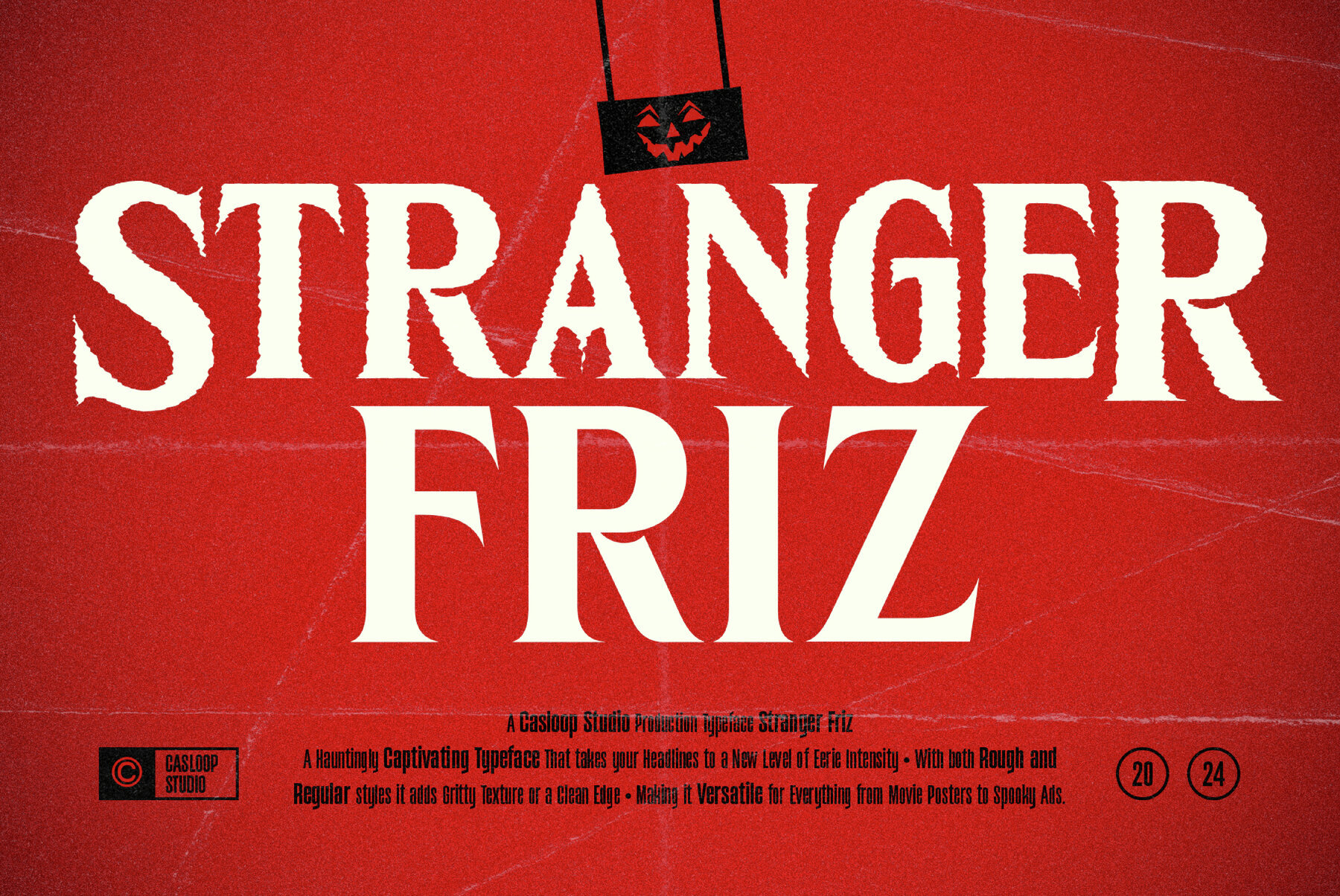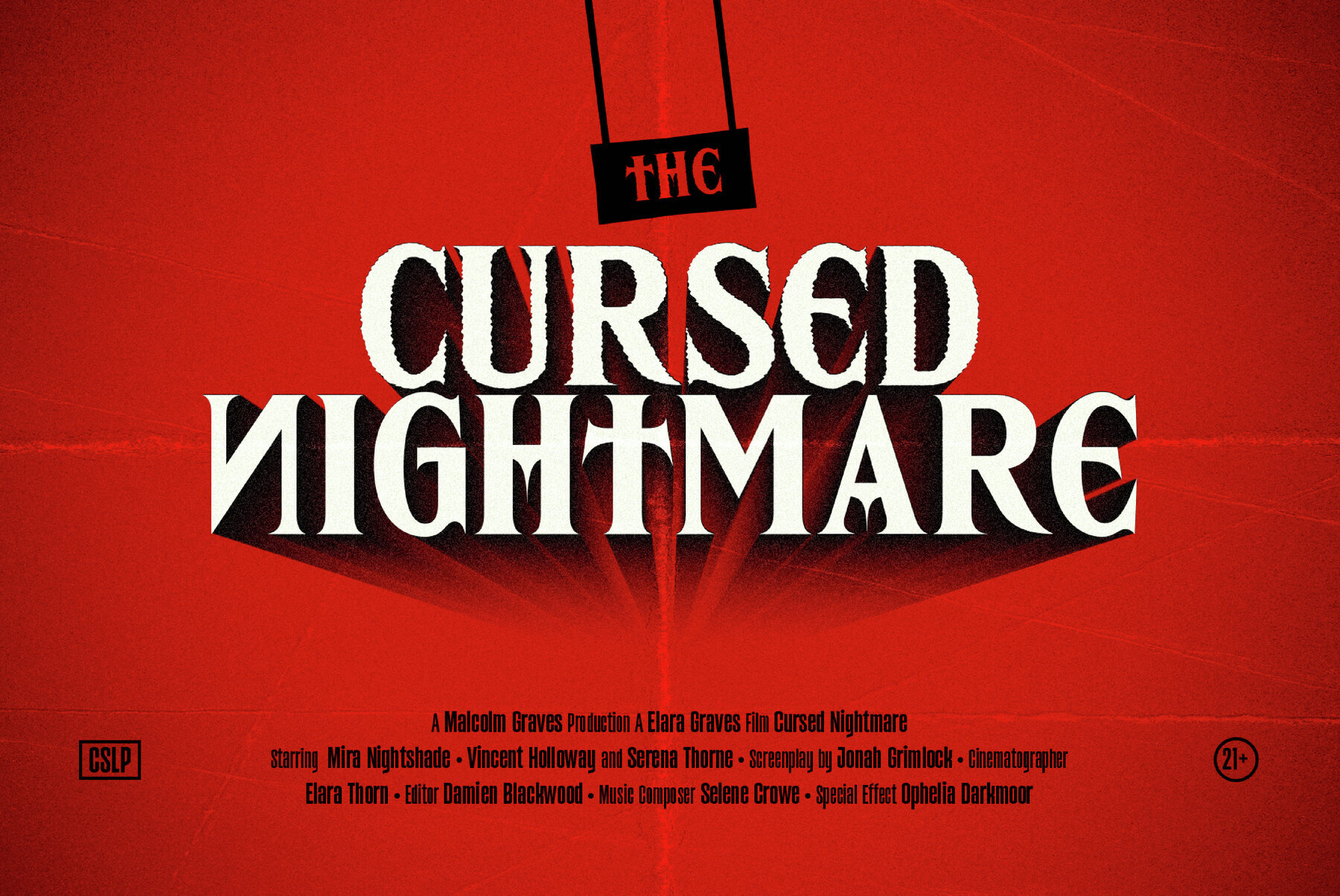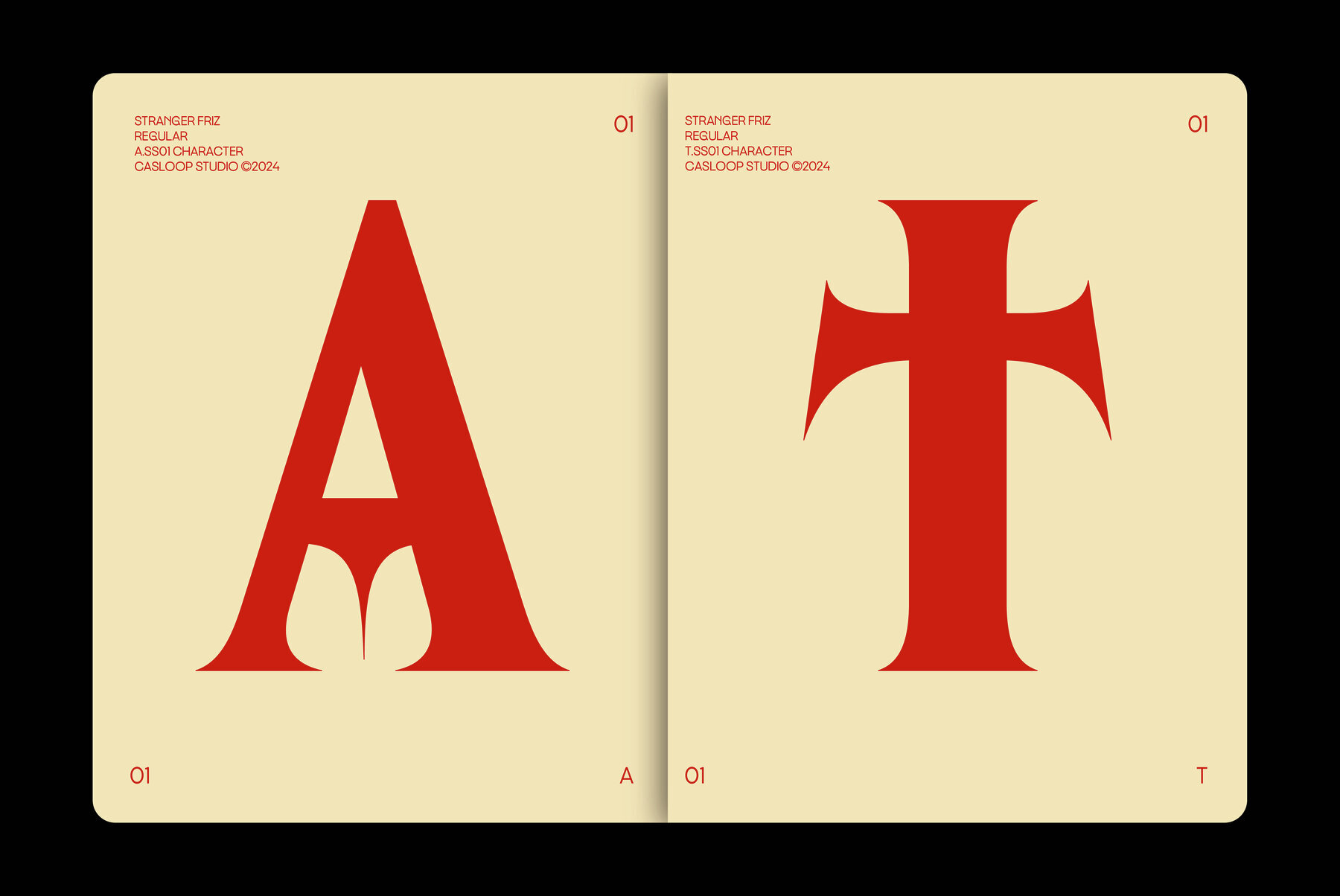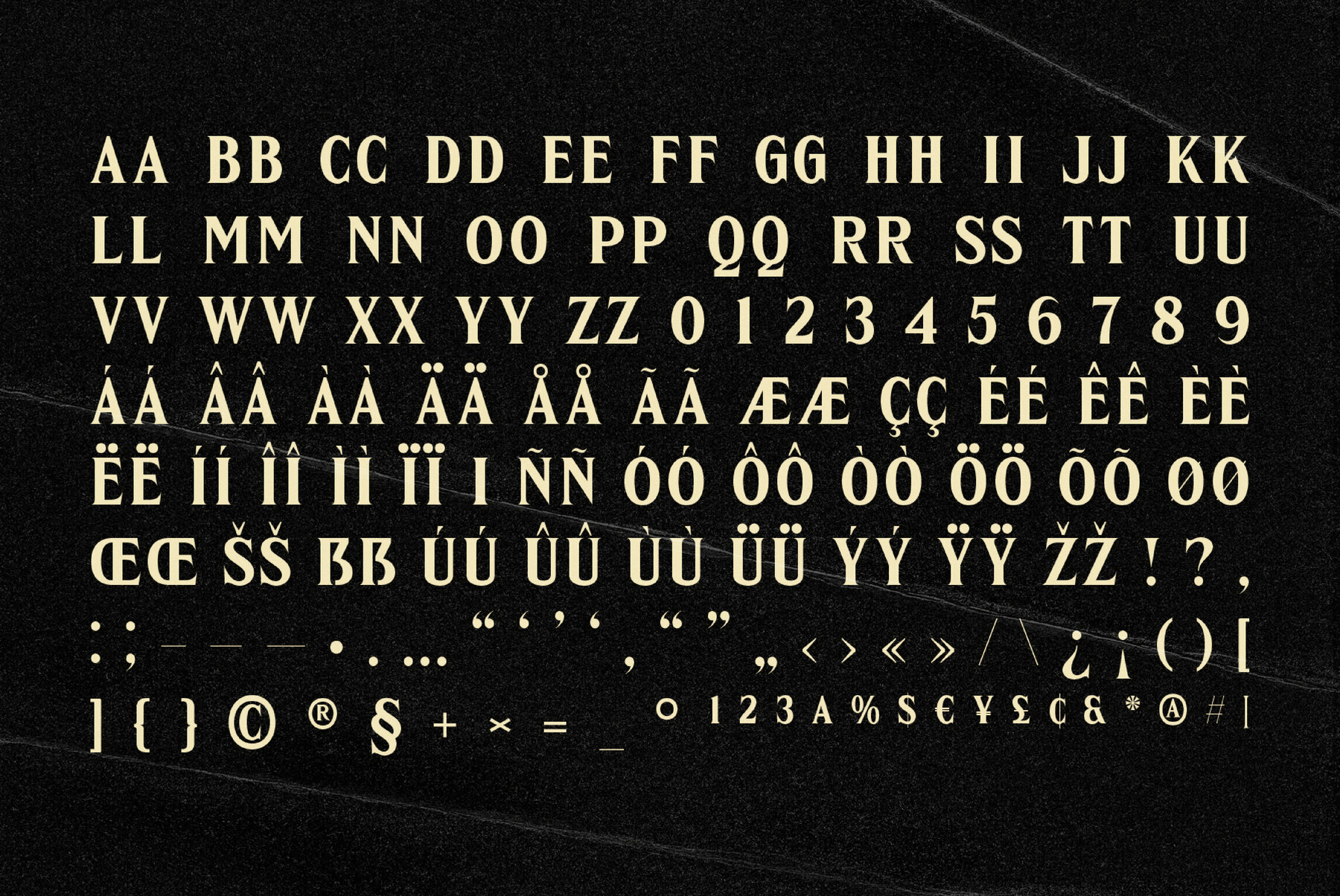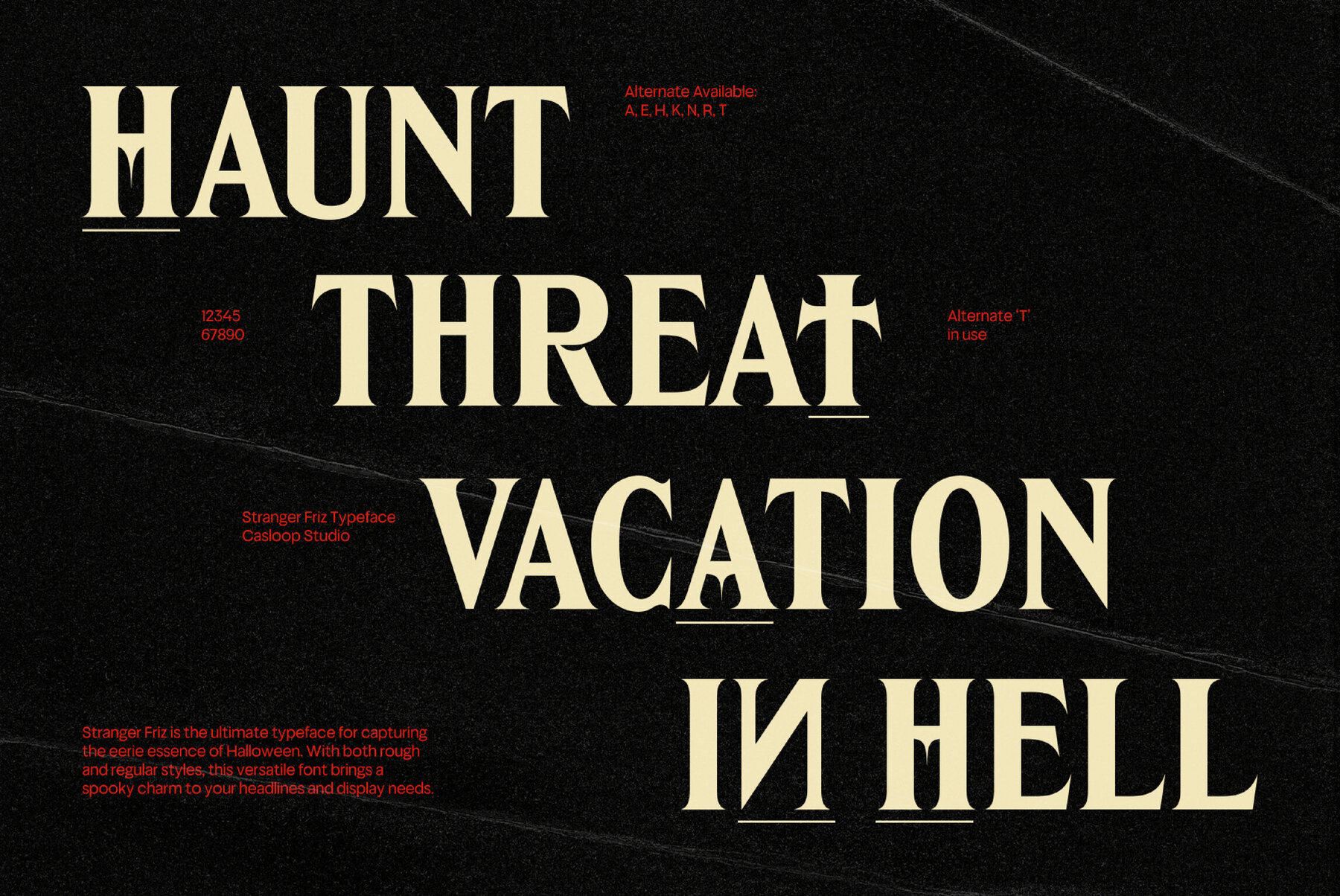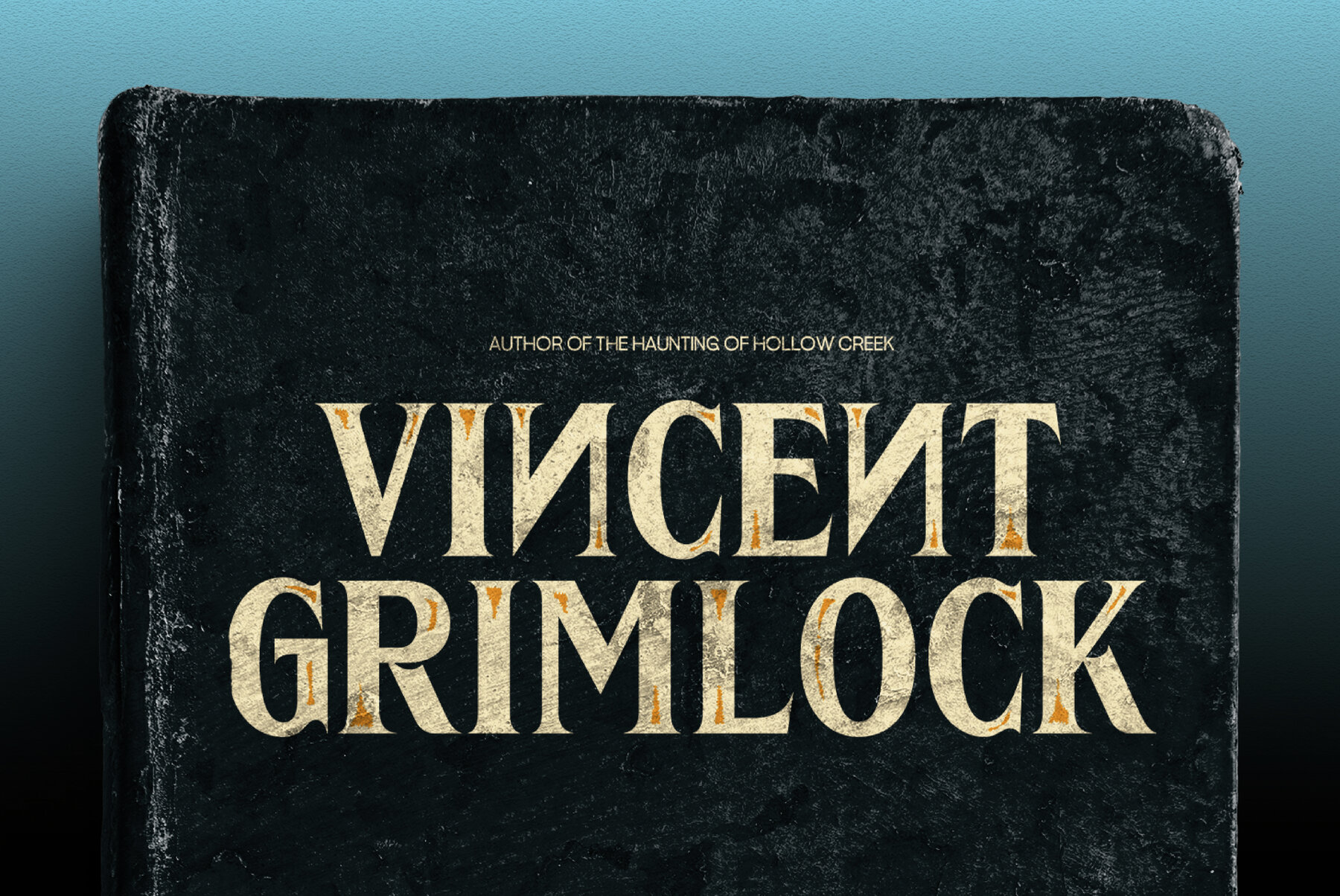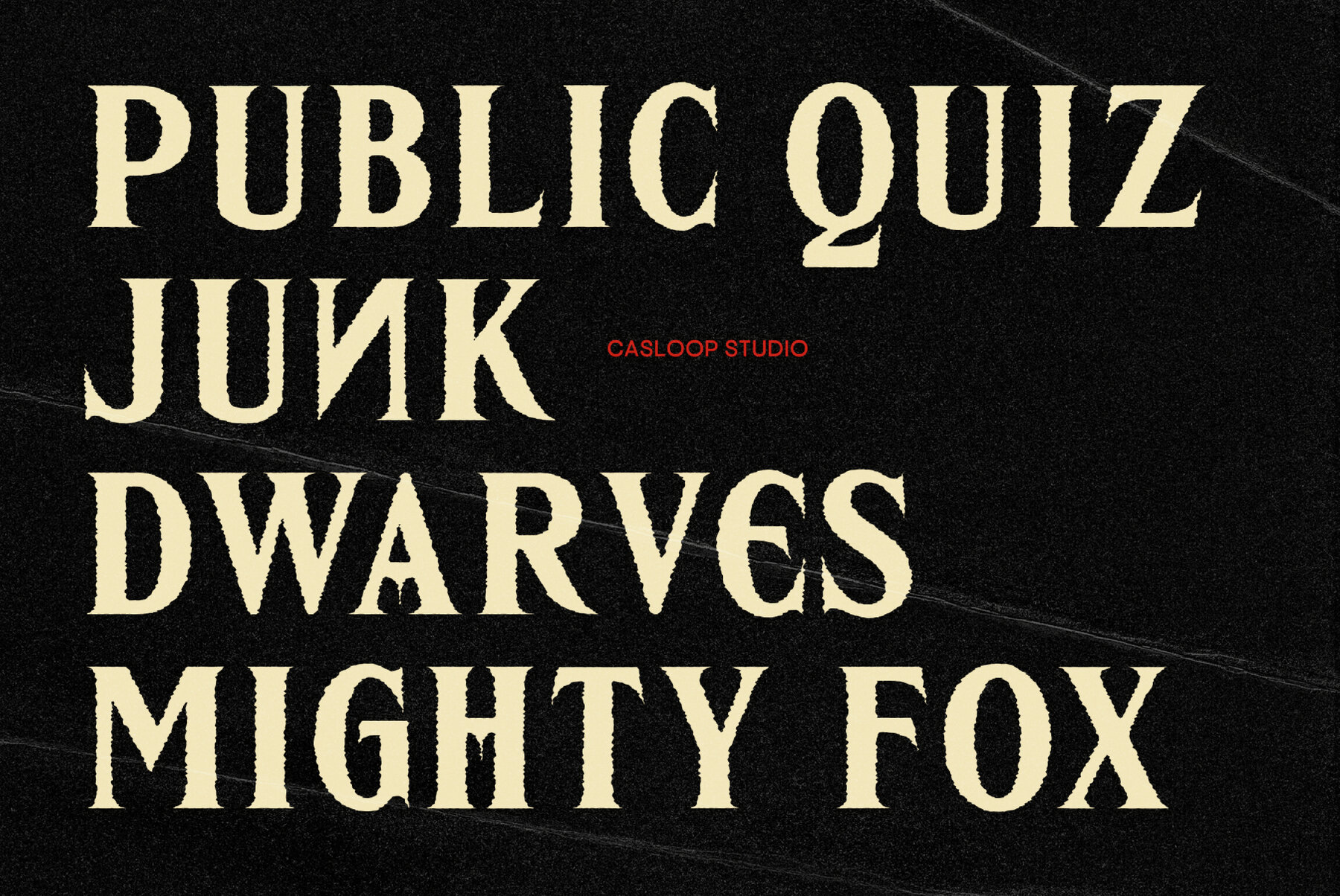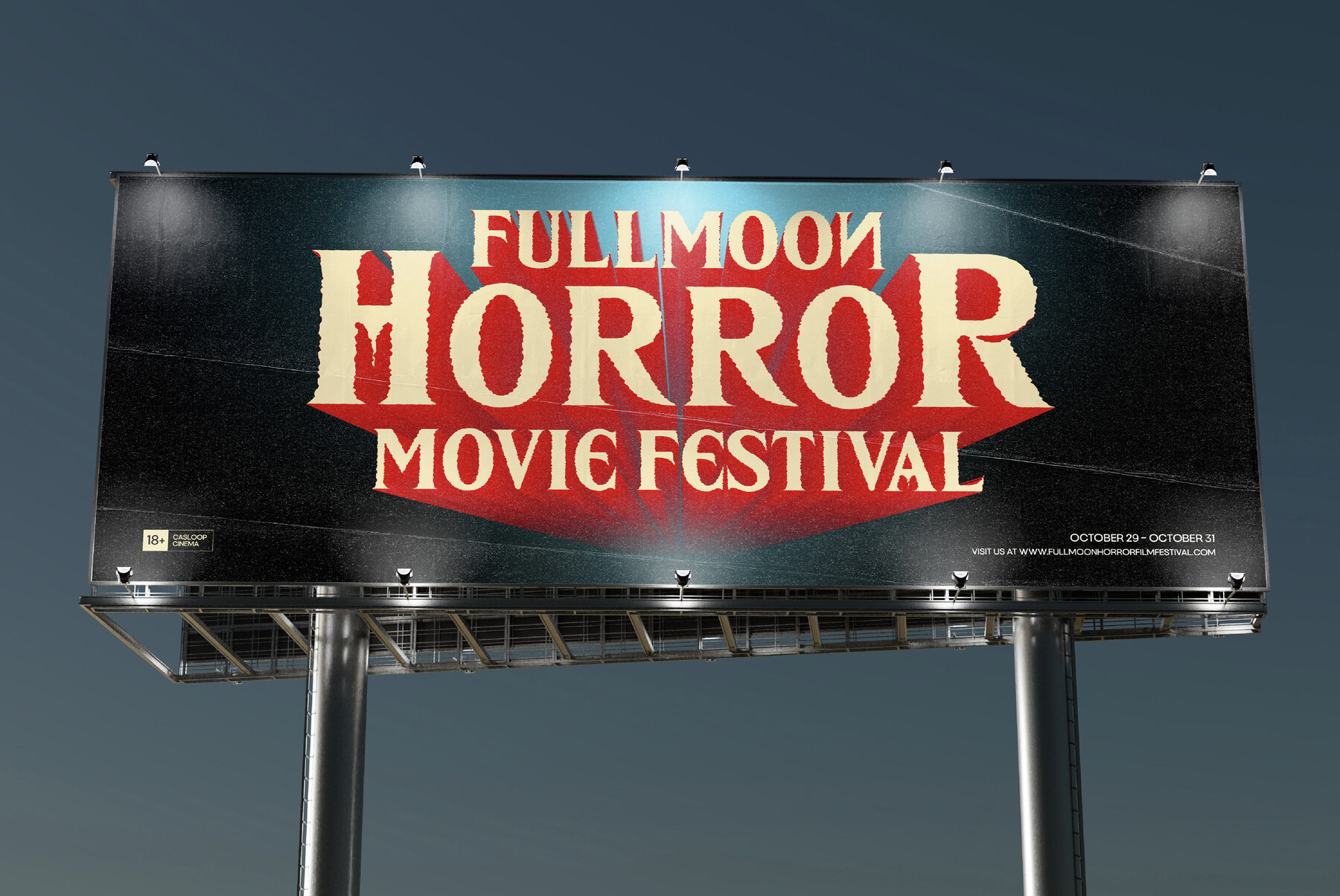
Stranger Friz Font
Stranger Friz Regular
Stranger Friz Rough
Stranger Friz is a display serif typeface designed to infuse your projects with the captivating allure of autumn nights fused with a hint of horror. Its unique grunge style blends classic elegance with fearsome creativity, making it ideal for projects that crave a touch of terror. This expressive typeface is a perfect fit for movie posters, digital media, and chilling design elements. Stranger Friz's decorative aspects conjure images of haunted houses and chilling tales, ensuring your branding and visuals leave a memorable impact. With support for a diverse range of languages including Bosnian, Danish, French, and Turkish, Stranger Friz caters to global storytelling needs. Make your projects stand out with a typeface that brings eerie excitement and depth to your creative work.Stranger Friz: Capturing the Eerie Essence of Autumn